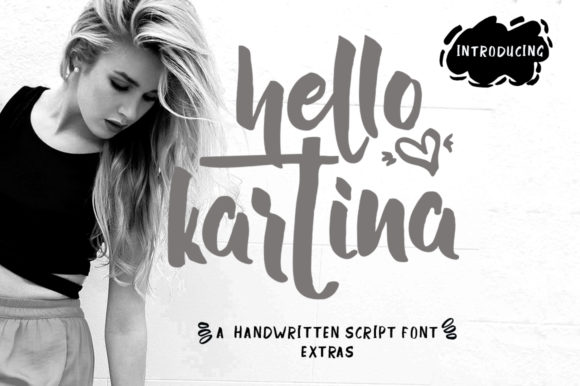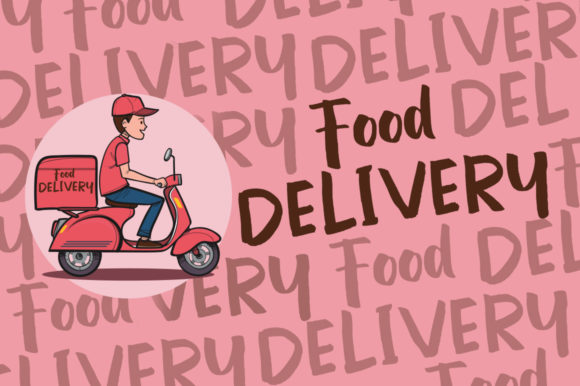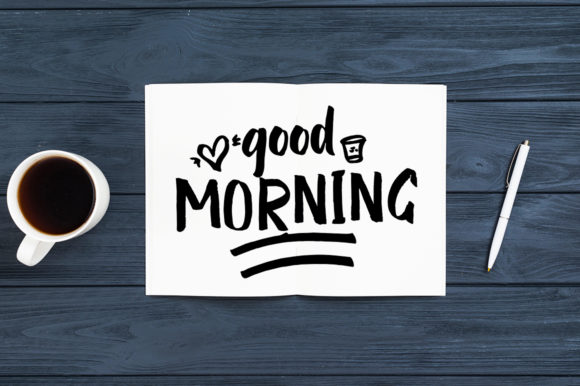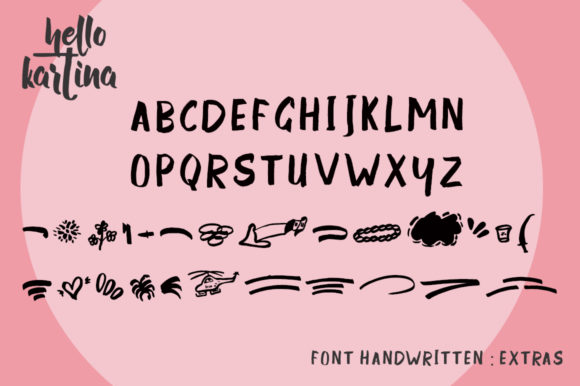
Hello Kartina Font
About Hello Kartina Font
Hello Kartina is a beautiful, organic, and fun handwritten font. Fall in love with its authentic feel and use it to create gorgeous wedding invitations, beautiful stationary art, eye-catching social media posts, and cute greeting cards.